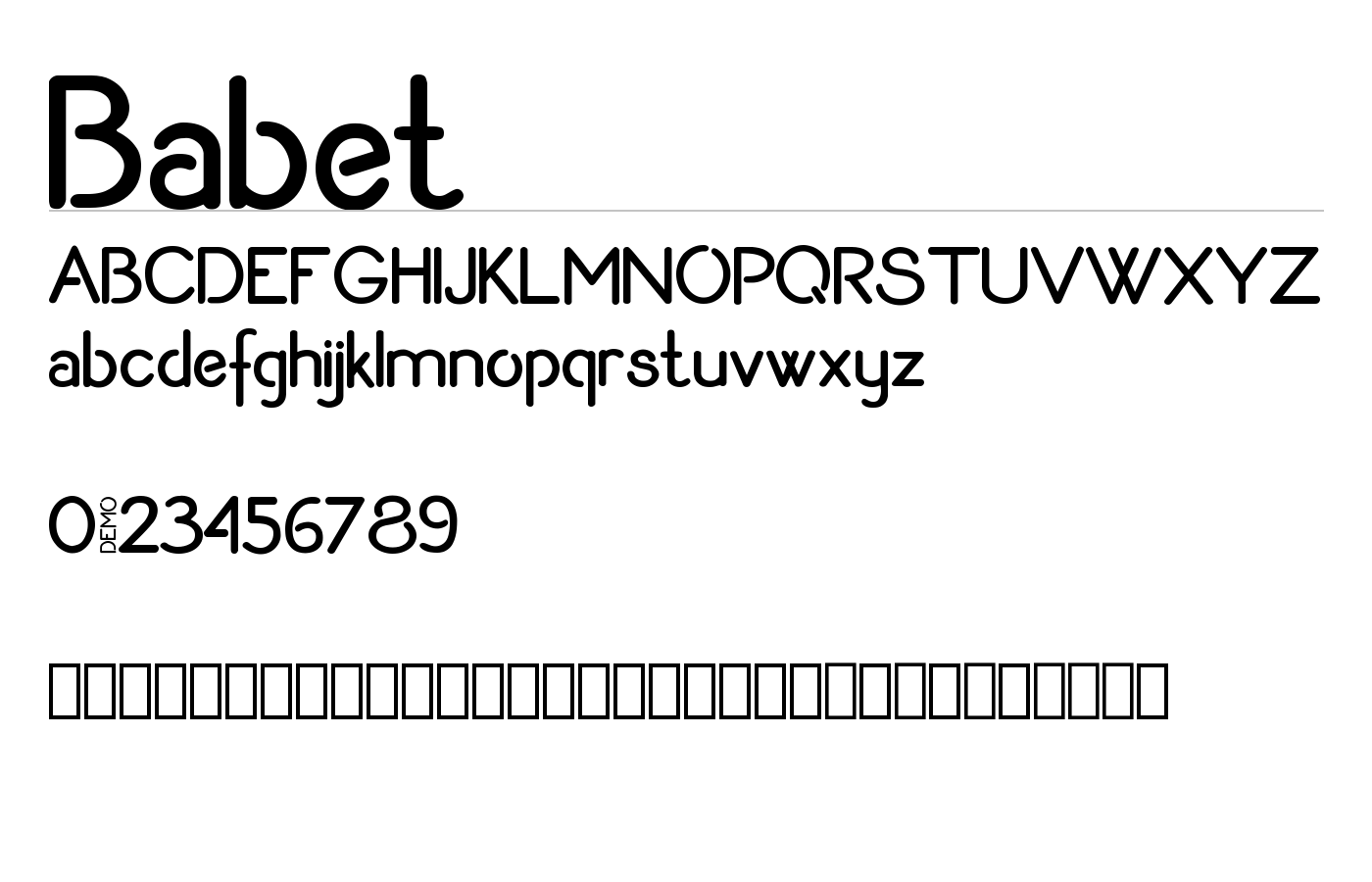
Babet is a playful and modern sans serif font with a unique, slightly rounded design that blends geometric shapes with soft curves. Its light to regular weight and medium contrast make it approachable and readable, while quirky letterforms like the single-story "a" and distinctive "Q" add character. Ideal for creative branding, packaging, and headlines, Babet brings a friendly, contemporary vibe perfect for stylish and casual designs.
Babet Font